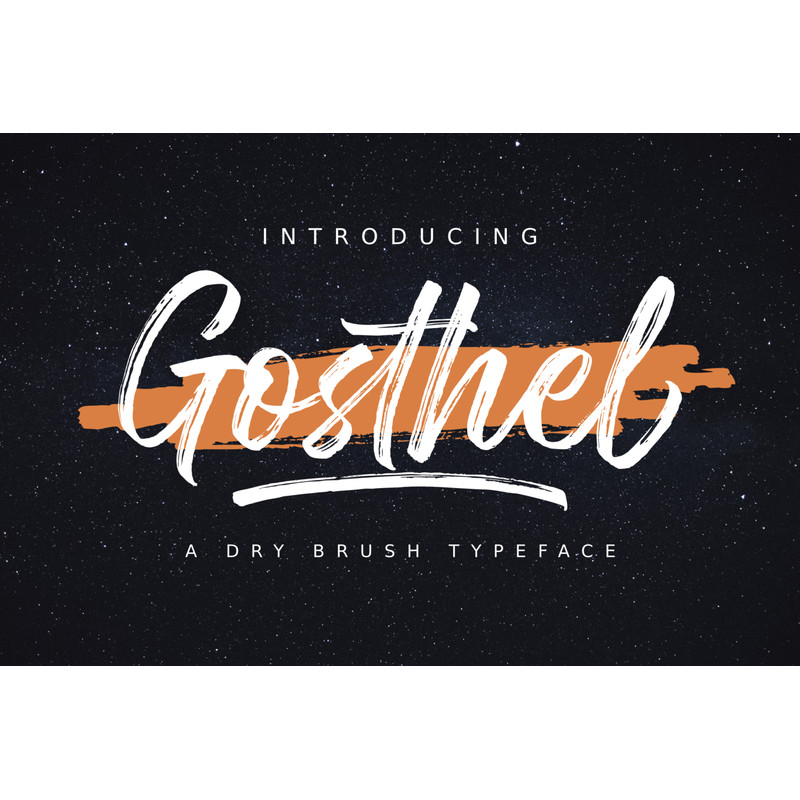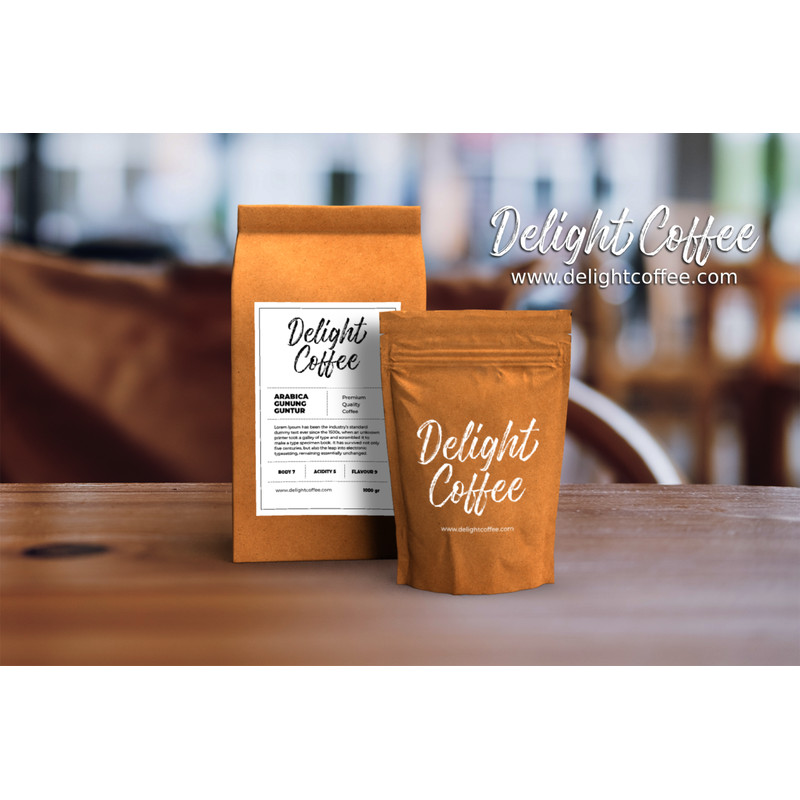
Gosthel is a good choice for many different projects such as logos & branding, invitation, stationery, wedding designs, social media posts, advertisements, product packaging, product designs, label, photography, watermark, special events or anything.
Ligatures & Alternates